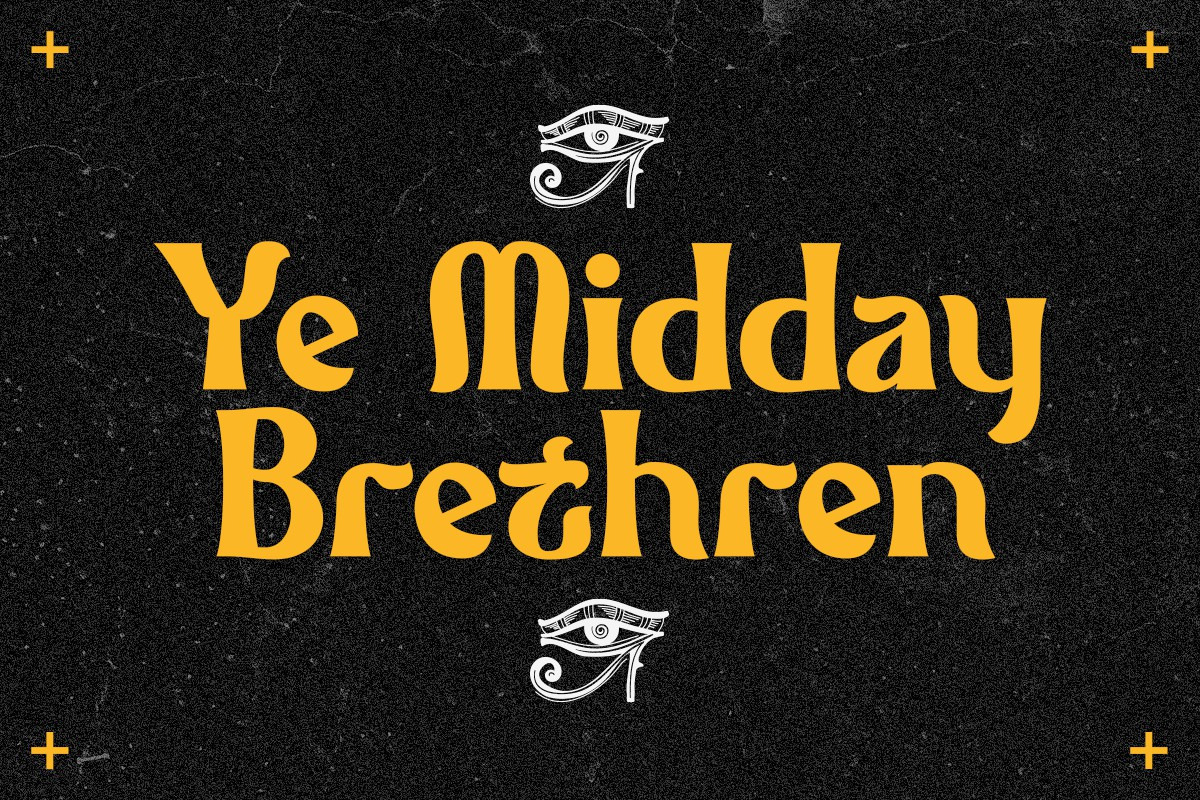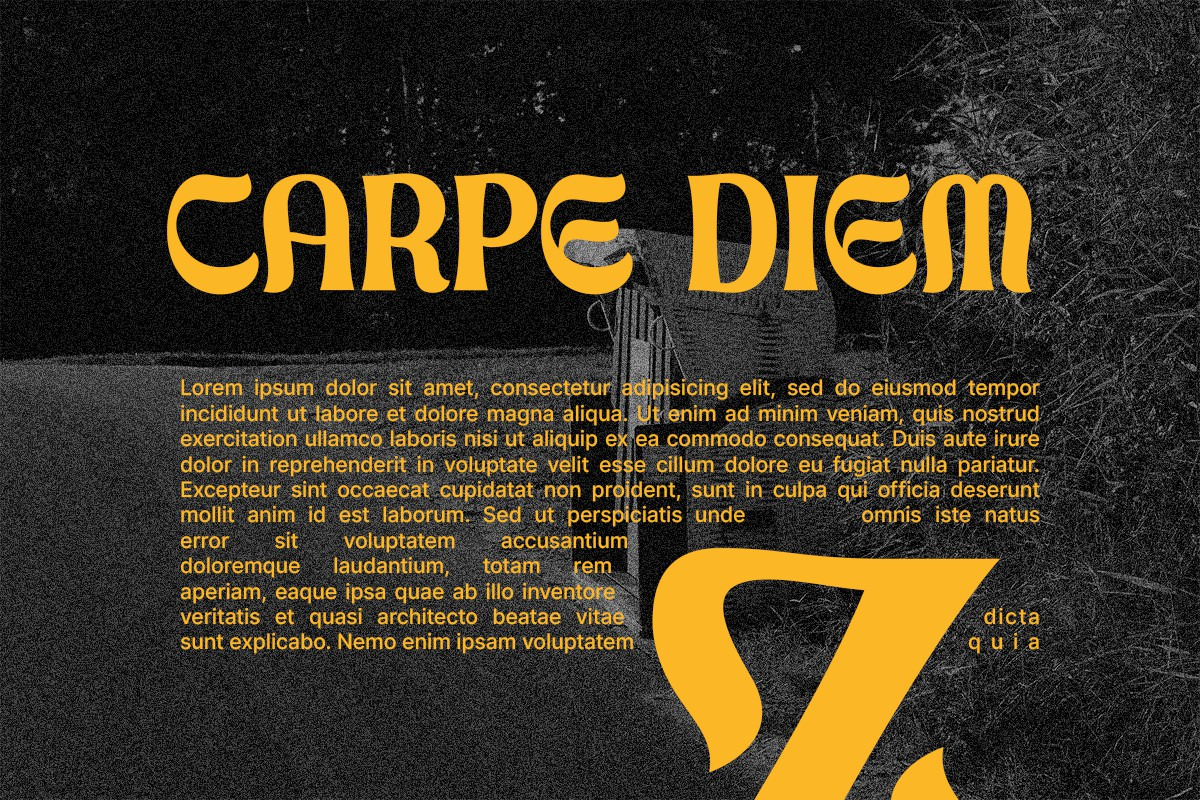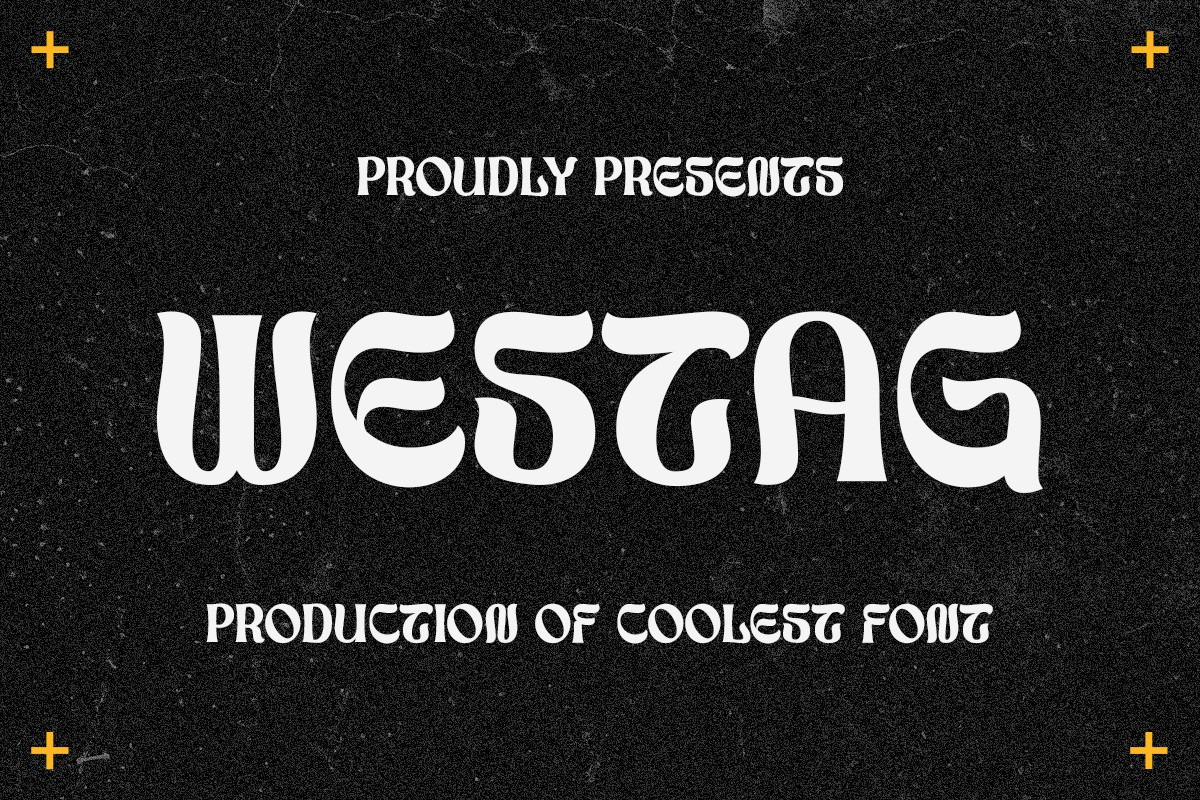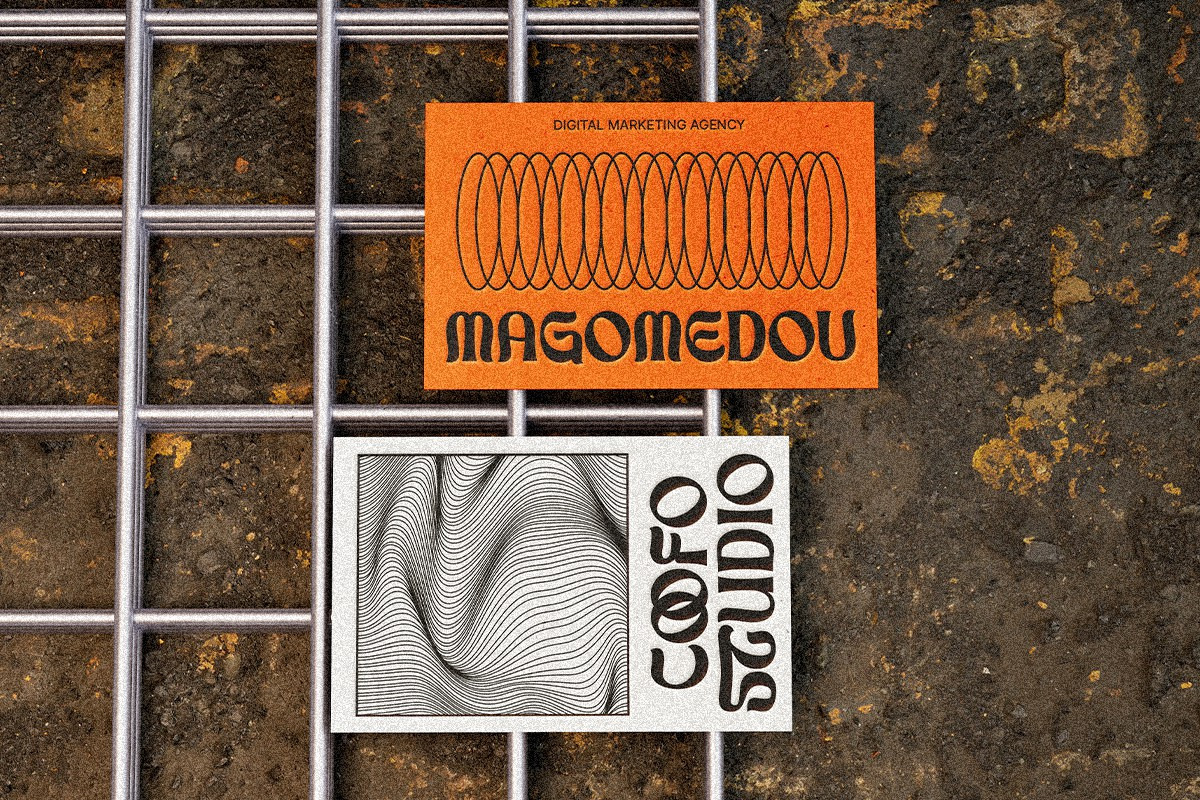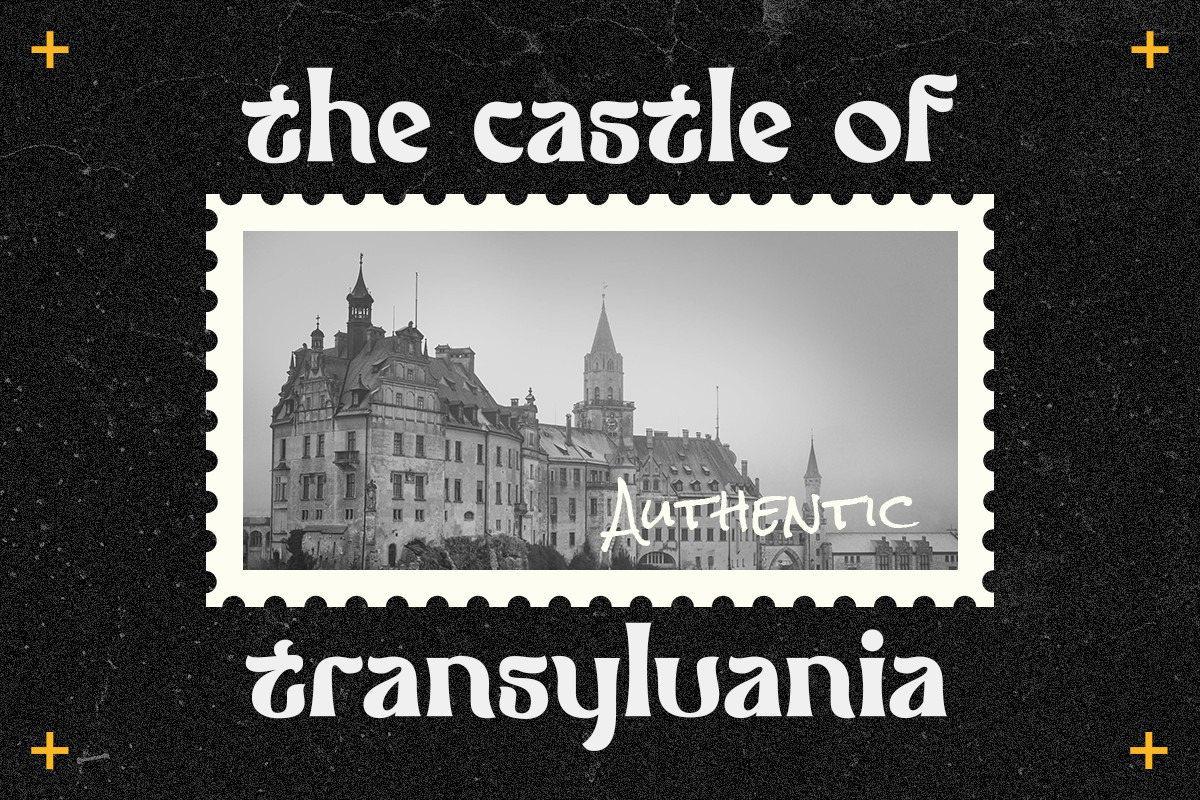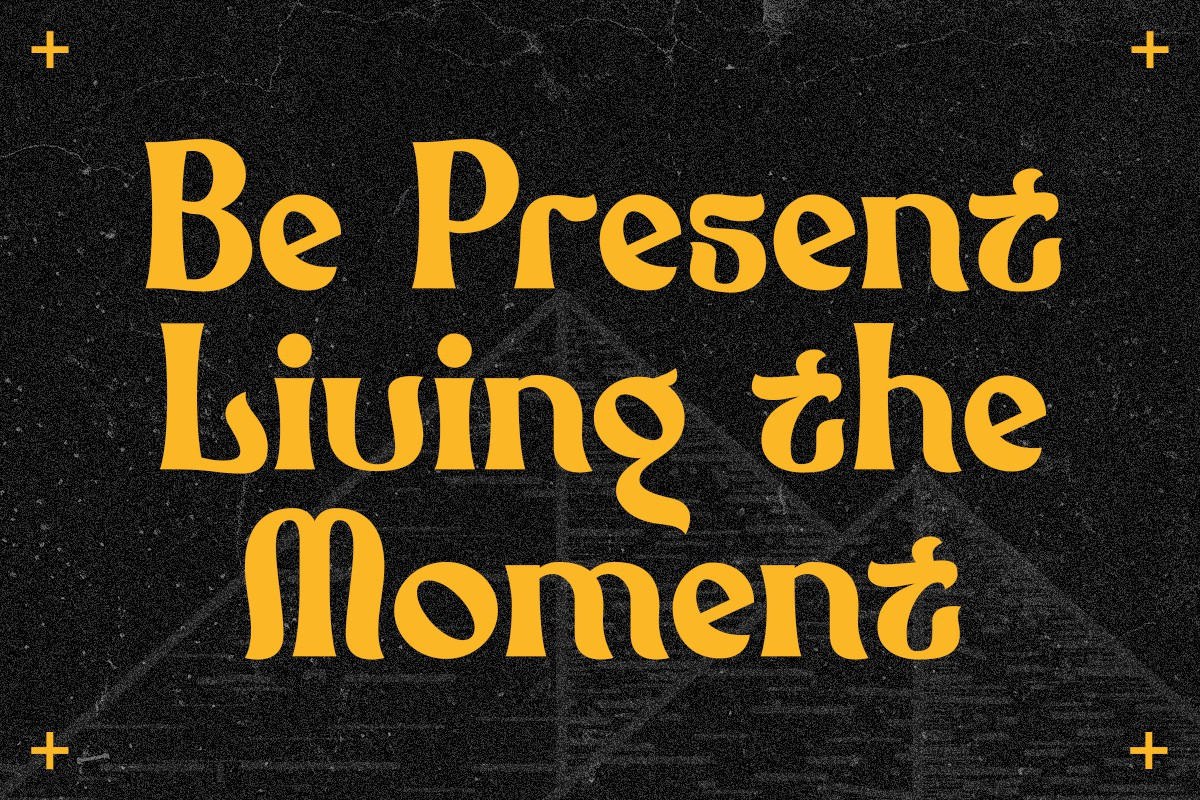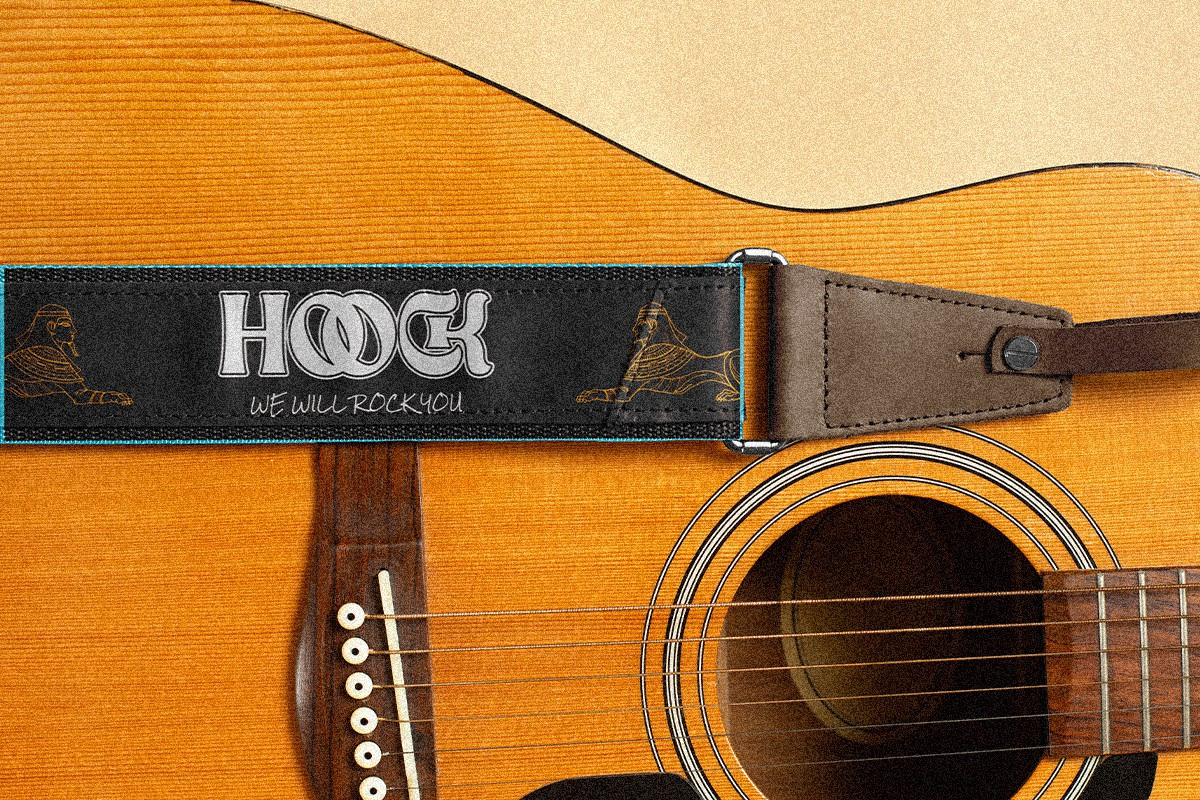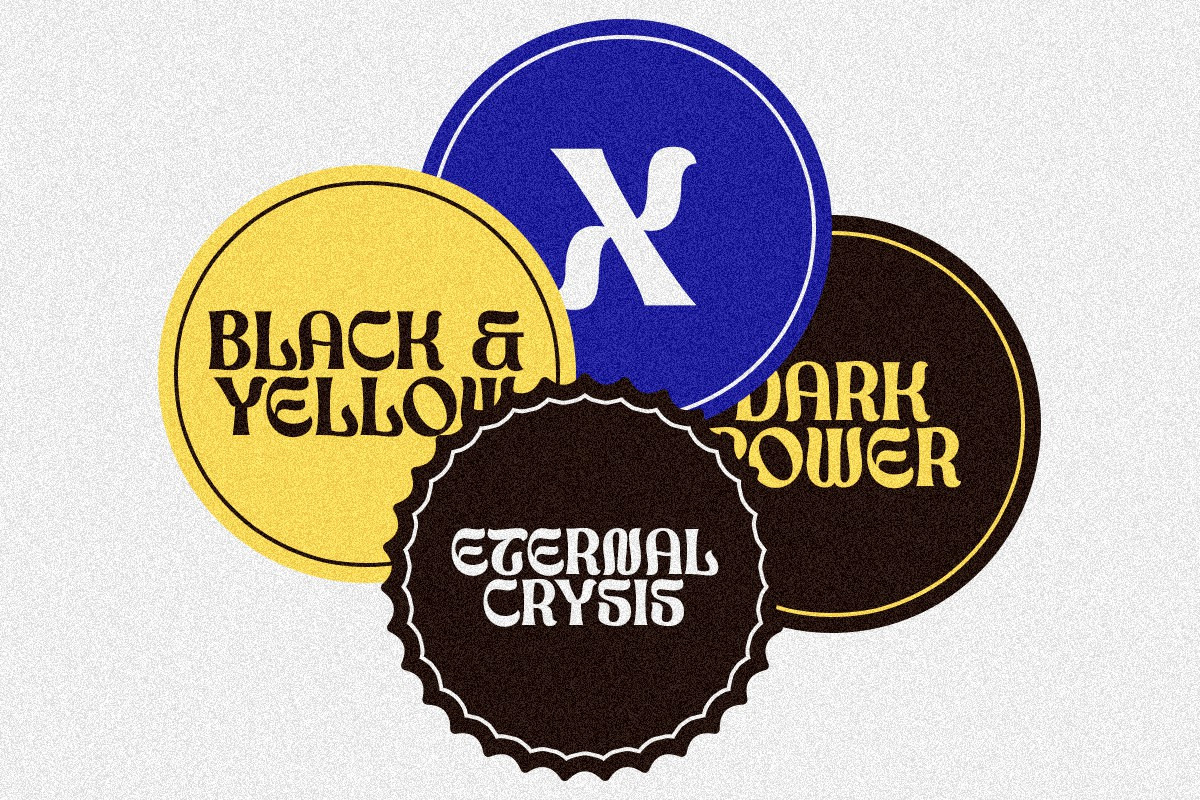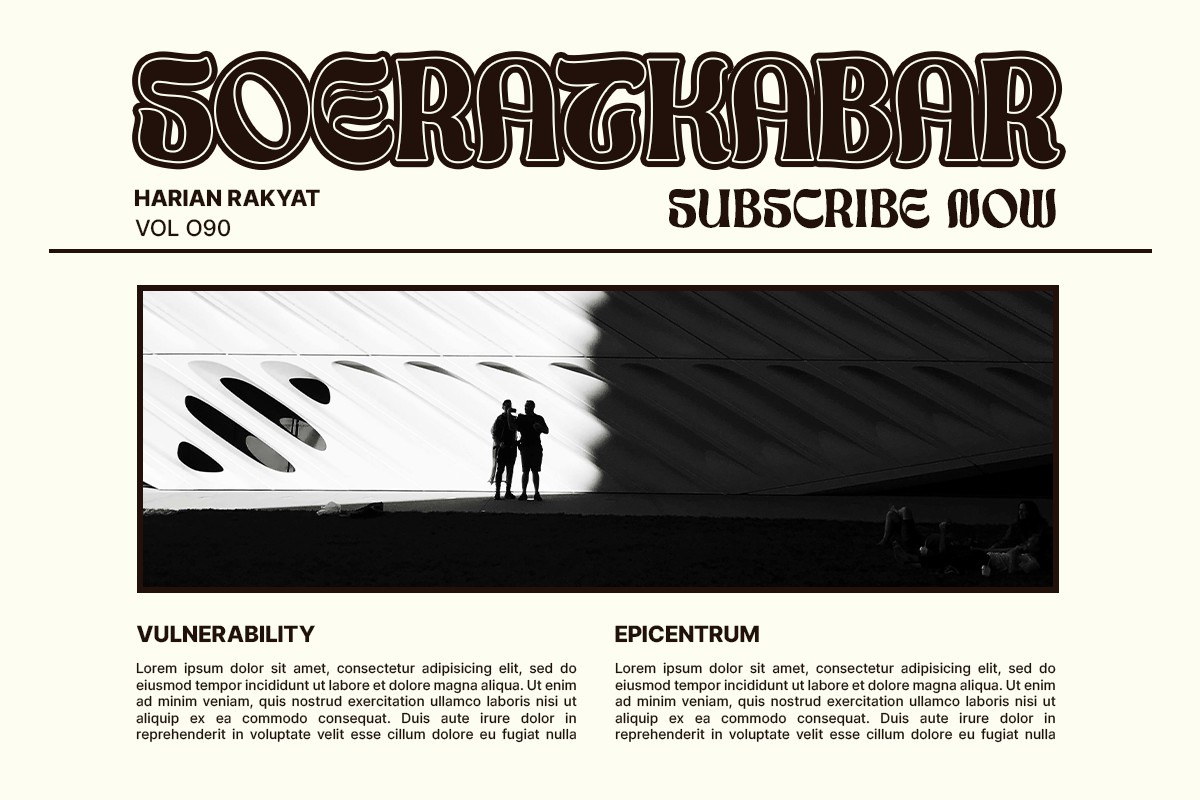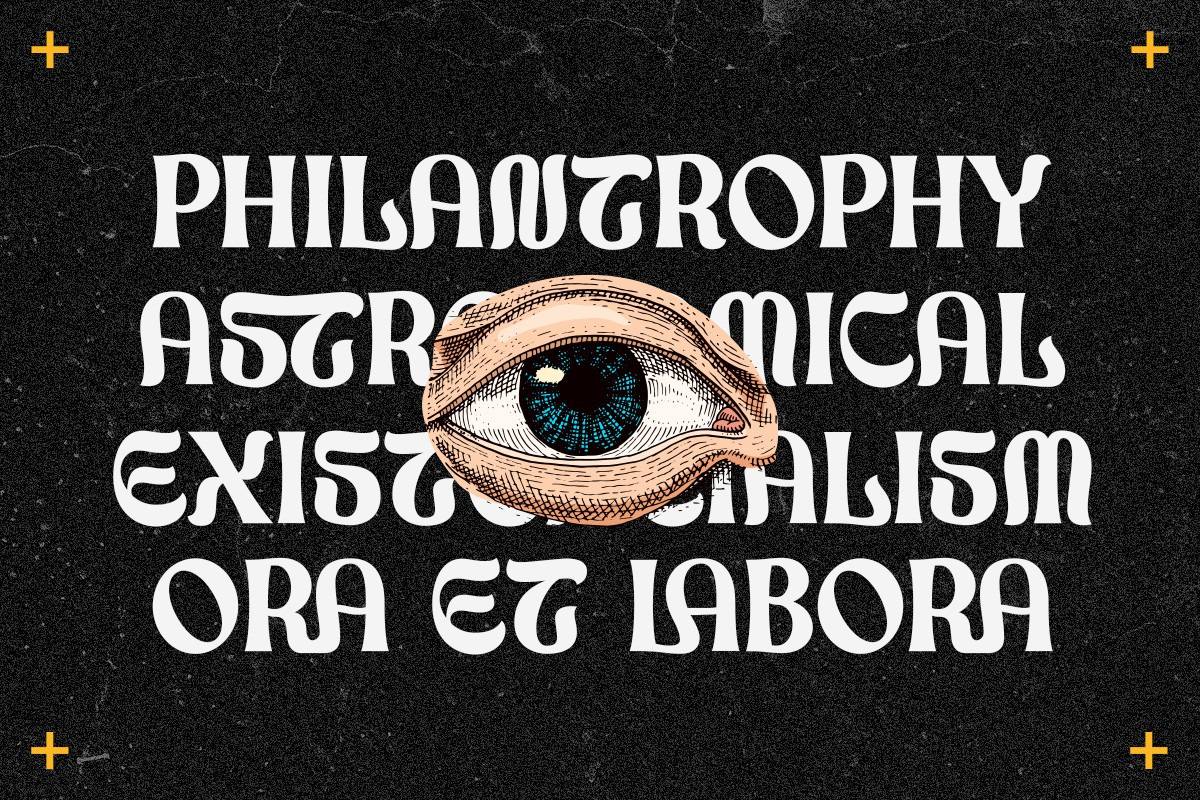
Westag Font
Westag – Timeless & Elegant Display Font
Westag is a beautifully crafted display font that blends elegance with a touch of modernity. Designed to make a lasting impression, this font is perfect for creating sophisticated branding, eye-catching logos, stylish packaging, and striking editorial designs. Its refined details and balanced letterforms make it a must-have for designers looking to add a luxurious and professional feel to their work.
Why Choose Westag Font?
- Versatile Usage – Perfect for logos, branding, packaging, magazines, invitations, posters, headlines, and more.
- Distinctive Aesthetic – A unique blend of elegance and contemporary style that stands out in any design.
- Professional Quality – Designed with precision to ensure high readability and a polished look.
- Multilingual Support – Covers a wide range of languages, making it accessible for global projects.
- OpenType Features – Includes stylistic alternates, ligatures, and advanced typographic features for enhanced creativity.
Westag Font is more than just a font—it's a statement. Whether you're working on a high-end fashion brand, luxury packaging, or editorial designs, this font will add sophistication and charm to your projects.